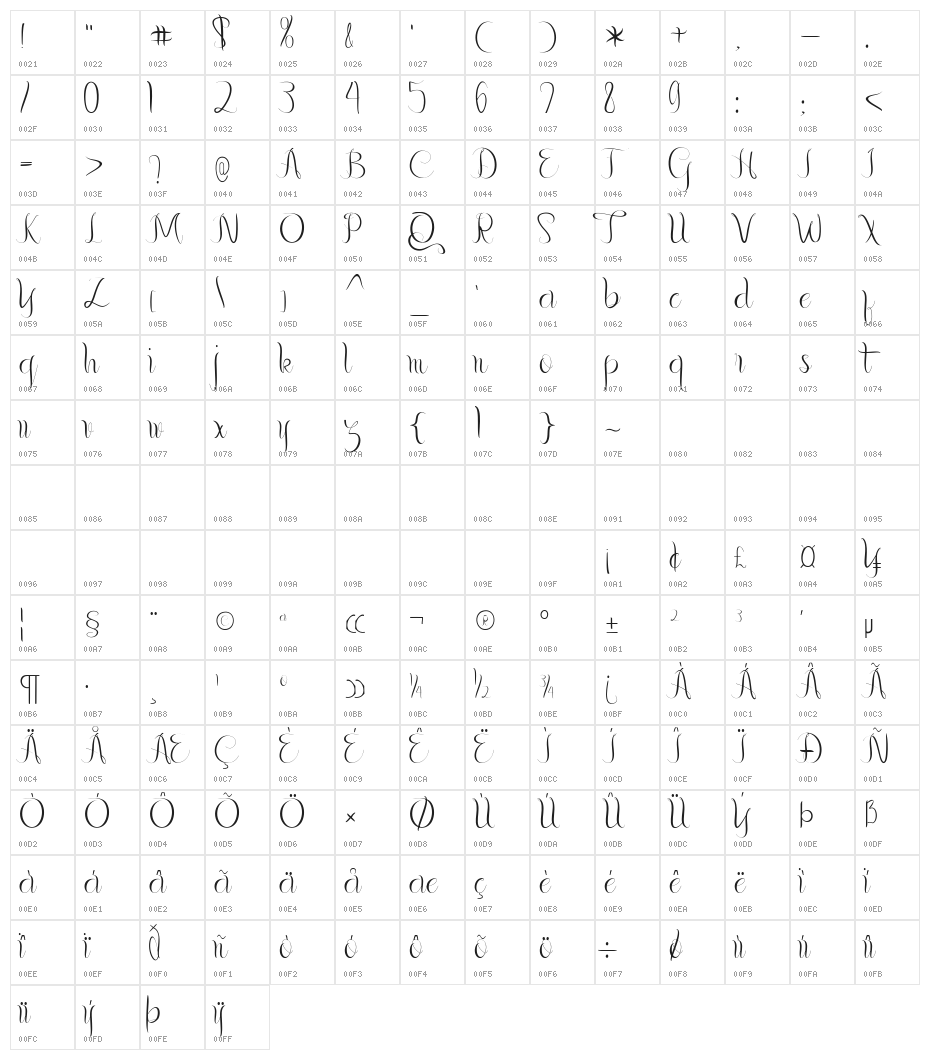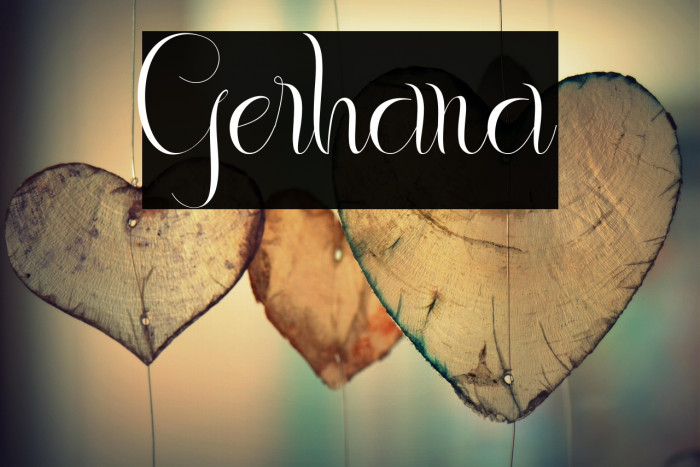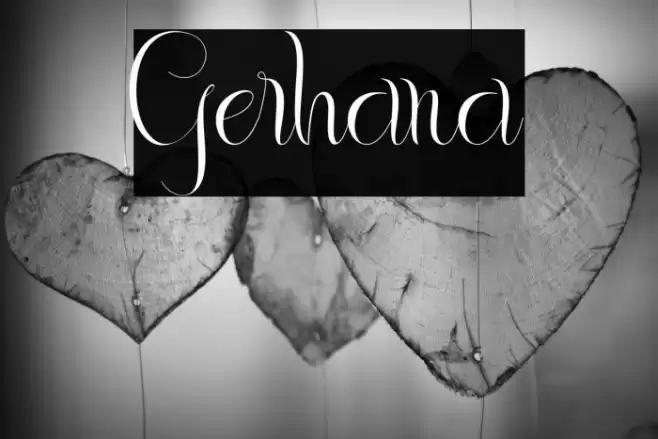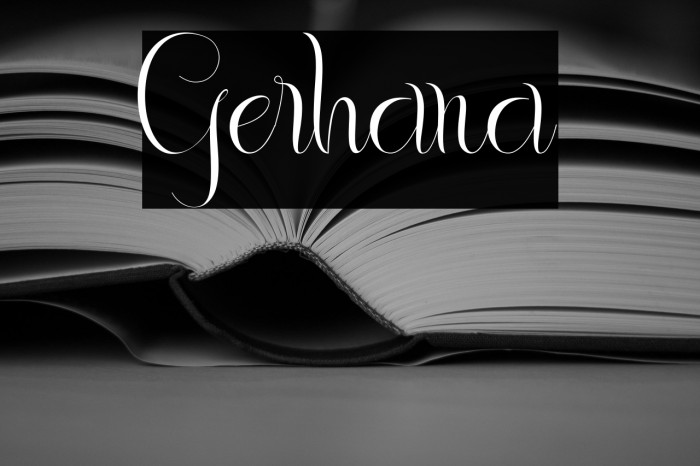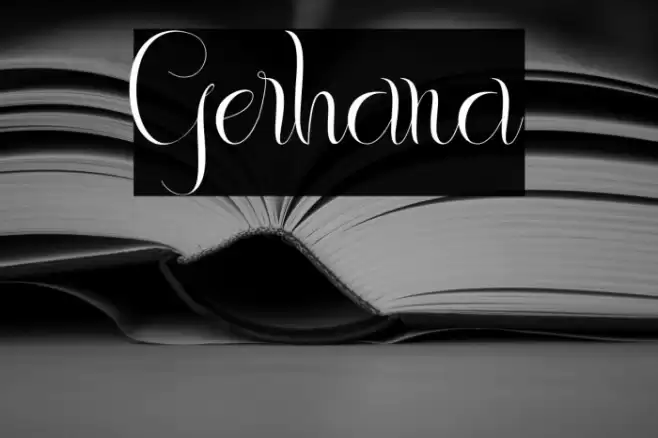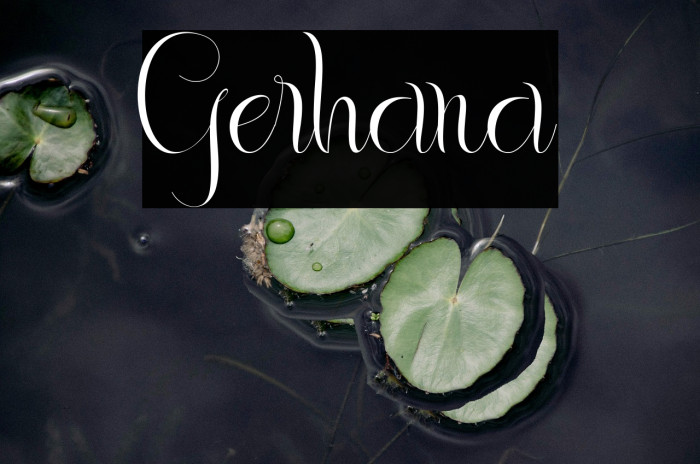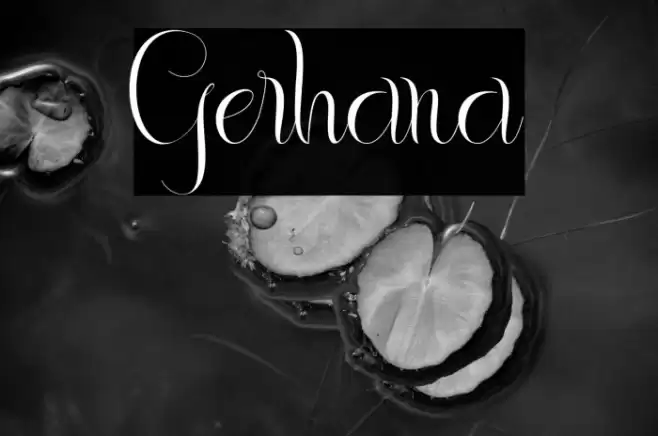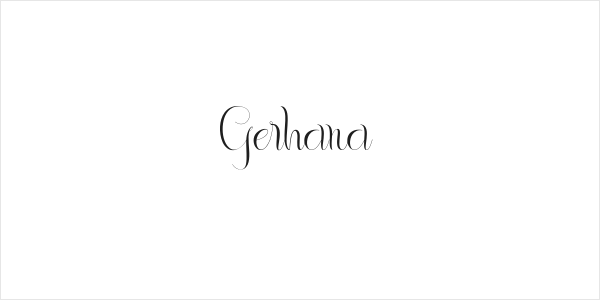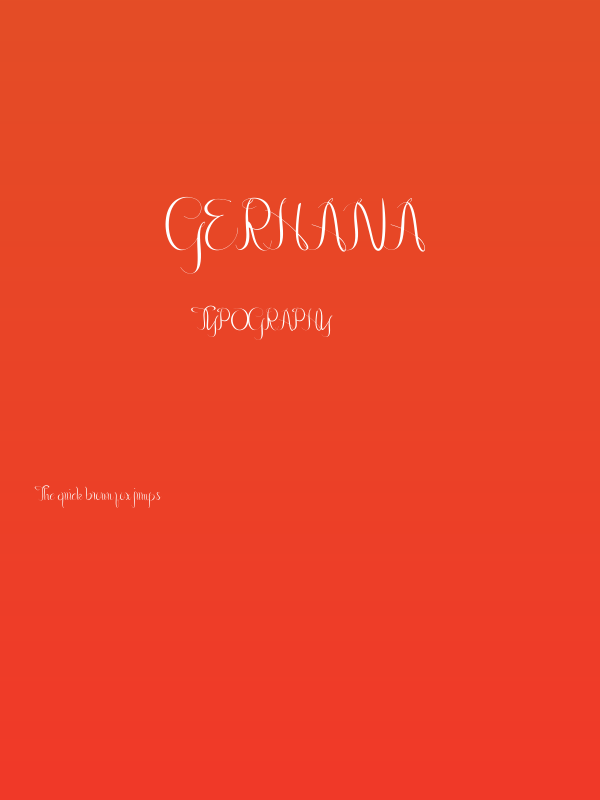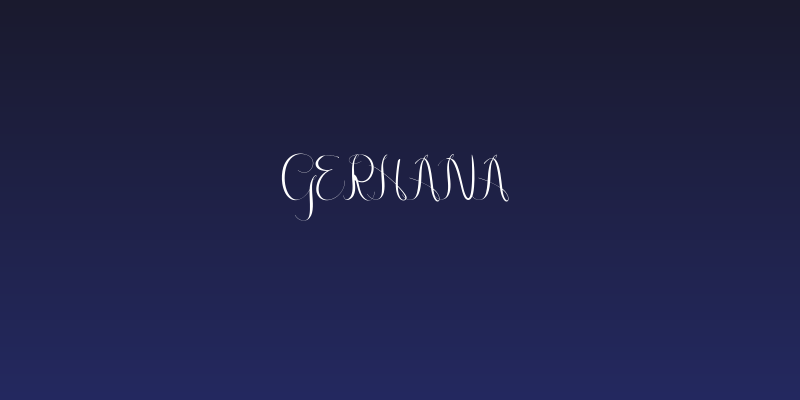
Gerhana Font
Gerhana Description
This font exhibits a highly decorative and elegant script style, characterized by its flowing, interconnected strokes and intricate swirls. The uppercase letters are particularly ornate, with extended loops and flourishes that give a sense of movement and sophistication. The lowercase letters maintain a consistent style, with smooth curves and a slight slant, enhancing the font's graceful appearance. The numerals and special characters are designed to match the overall aesthetic, featuring similar embellishments and fluid lines. This font is ideal for projects that require a touch of elegance and artistry.